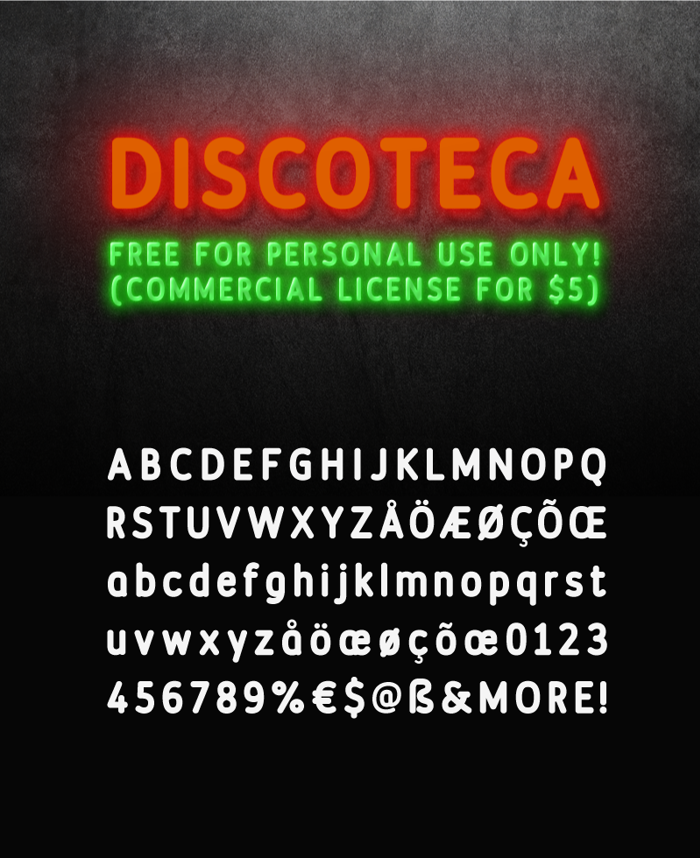
Discoteca Rounded Font
A really soft and friendly rounded font. More condensed and readable than the famous "VAG Rounded" and a decent alternative to the very infamous "Comic Sans".